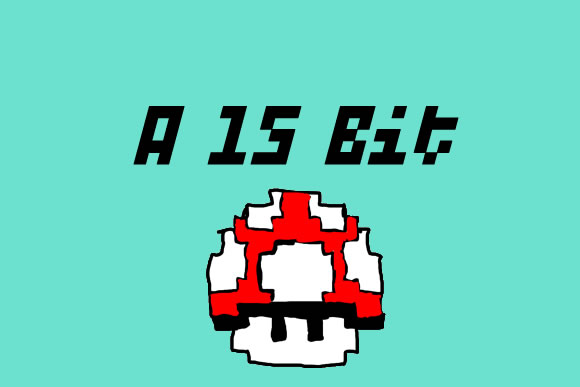
A 15 Bit Font
Embrace the captivating essence of A 15 Bit Font, a typographic gem that weaves a tale of bygone eras with its charmingly retro aesthetic. Step into a realm where pixels dance and nostalgia reigns supreme, and let this decorative font ignite your imagination.
Journey through a kaleidoscope of emotions as A 15 Bit Font transports you to a simpler time, where the allure of classic video games and the warmth of vintage typography converge. Each character is meticulously crafted to evoke a sense of playful nostalgia, inviting you to relive the magic of yesteryears.
Unleash your creativity and embark on an artistic odyssey with A 15 Bit Font. Its versatility shines across an array of projects, from whimsical logos and eye-catching posters to captivating social media posts and retro-inspired branding. Let your designs radiate with the captivating charm of A 15 Bit Font, and forge an unforgettable connection with your audience.
Visualize your words taking on a life of their own, imbued with the playful spirit of A 15 Bit Font. Craft headlines that pop, slogans that resonate, and text that captivates. This font is not merely a collection of letters; it's a portal to a world where imagination and creativity intertwine.
With A 15 Bit Font, you hold the power to evoke emotions, tell stories, and leave an indelible mark on your audience. Its timeless appeal transcends trends, ensuring that your designs remain captivating for years to come. Join the ranks of those who appreciate the beauty of nostalgia and embrace the allure of A 15 Bit Font.